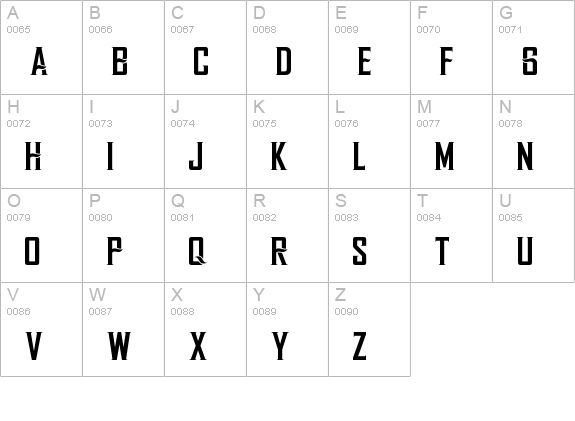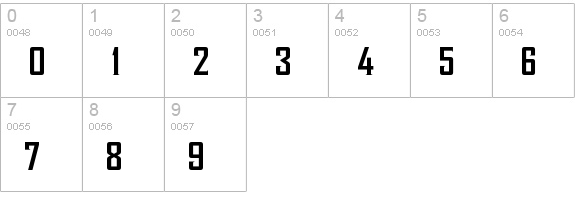
Whiskey Font Details
Introducing Whiskey font, a stunning display typeface that exudes elegance and sophistication. With its bold, yet refined design, Whiskey is perfect for making a statement in your projects. Whether you're creating branding materials, posters, invitations, or anything in between, this font is sure to captivate your audience. What's even better is that Whiskey font is completely free to download at FontsMarket.com. Yes, you read that right - you can enhance your designs with this premium font without spending a dime. Don't miss out on the opportunity to add a touch of finesse to your work with Whiskey font. Download it now and elevate your design game!